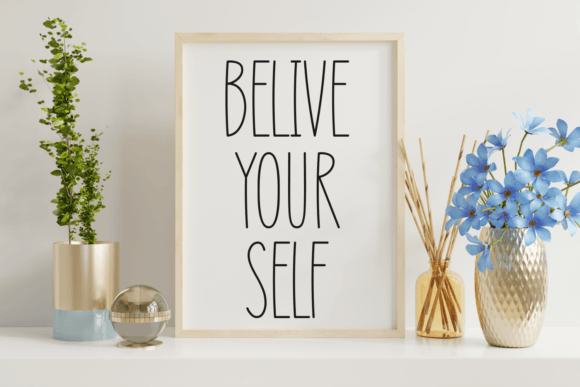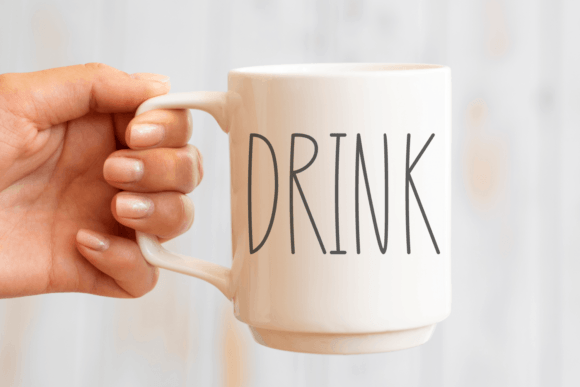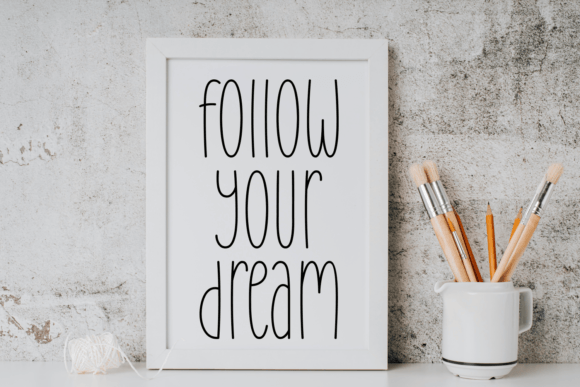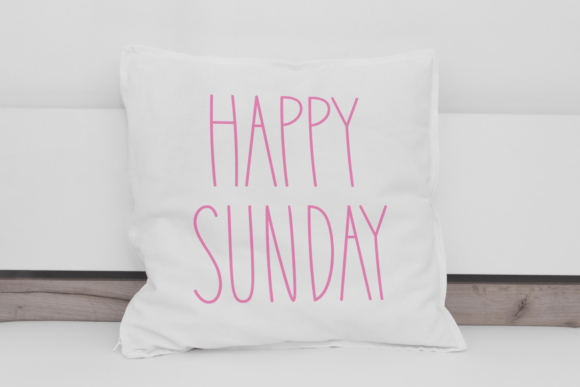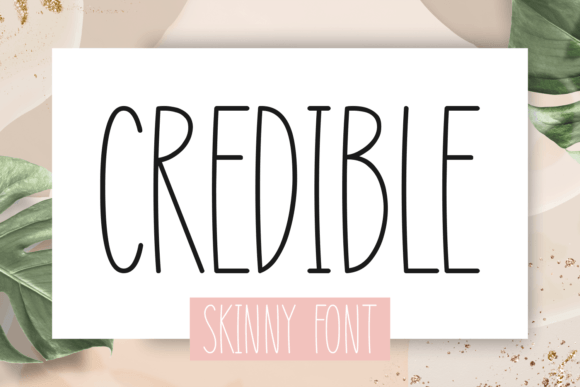
Introducing Credible Font: A Delicate and Friendly Handwritten Font
When it comes to creating visually stunning designs, typography plays a vital role. A font can make or break the aesthetic of a project, which is why designers and crafters are always on the lookout for unique and high-quality fonts. If you’re looking for a font that exudes a sense of delicacy and friendliness, look no further than Credible Font. In this article, we’ll dive into the world of Credible Font and explore its features, benefits, and uses.
What is Credible Font?
Credible Font is a beautiful, handwritten font that boasts a natural and unique style. Its delicate and friendly appearance makes it an excellent choice for a wide range of designs, from digital projects to print materials. The font’s versatility is one of its standout features, allowing designers to use it in various contexts, from elegant branding to playful crafts.
The Characteristics of Credible Font
So, what makes Credible Font so special? Here are some of its key characteristics:
• Delicate and Friendly: Credible Font has a soft, approachable quality that makes it perfect for designs that require a touch of warmth and personality.
• Natural and Unique: The font’s handwritten style gives it a distinctive, organic feel that sets it apart from more traditional fonts.
• Versatile: Credible Font can be used in a variety of designs, from modern and sleek to vintage and whimsical.
• Easy to Read: Despite its delicate nature, Credible Font is surprisingly easy to read, making it suitable for both headings and body text.
Benefits of Using Credible Font
Now that we’ve explored the characteristics of Credible Font, let’s discuss its benefits. Here are just a few reasons why designers and crafters love this font:
• Adds Personality to Your Designs: Credible Font’s unique style allows you to add a touch of personality to your designs, setting them apart from more generic projects.
• Perfect for Branding: The font’s friendly and approachable nature makes it an excellent choice for branding projects, such as logos, business cards, and letterheads.
• Suitable for Digital and Print Materials: Credible Font can be used in both digital and print materials, making it a versatile addition to your font library.
• Easy to Pair with Other Fonts: The font’s neutral nature makes it easy to pair with other fonts, allowing you to create stunning font combinations.
Uses of Credible Font
So, what can you use Credible Font for? The possibilities are endless! Here are a few ideas to get you started:
• Branding and Logo Design: Use Credible Font to create a unique and memorable logo for your business or brand.
• Stationery and Invitations: Add a touch of elegance to your stationery and invitations with Credible Font.
• Digital Projects: Use Credible Font in your digital projects, such as website designs, social media graphics, and email newsletters.
• Crafts and DIY Projects: Add a personal touch to your crafts and DIY projects, such as handmade cards, gift tags, and scrapbooking.
In conclusion, Credible Font is a delicate and friendly handwritten font that offers a unique and versatile solution for designers and crafters. Its natural and unique style makes it incredibly fitting to a large pool of designs, and the only limit is your imagination! Whether you’re looking to add personality to your designs, create a stunning brand identity, or simply want to try something new, Credible Font is an excellent choice.